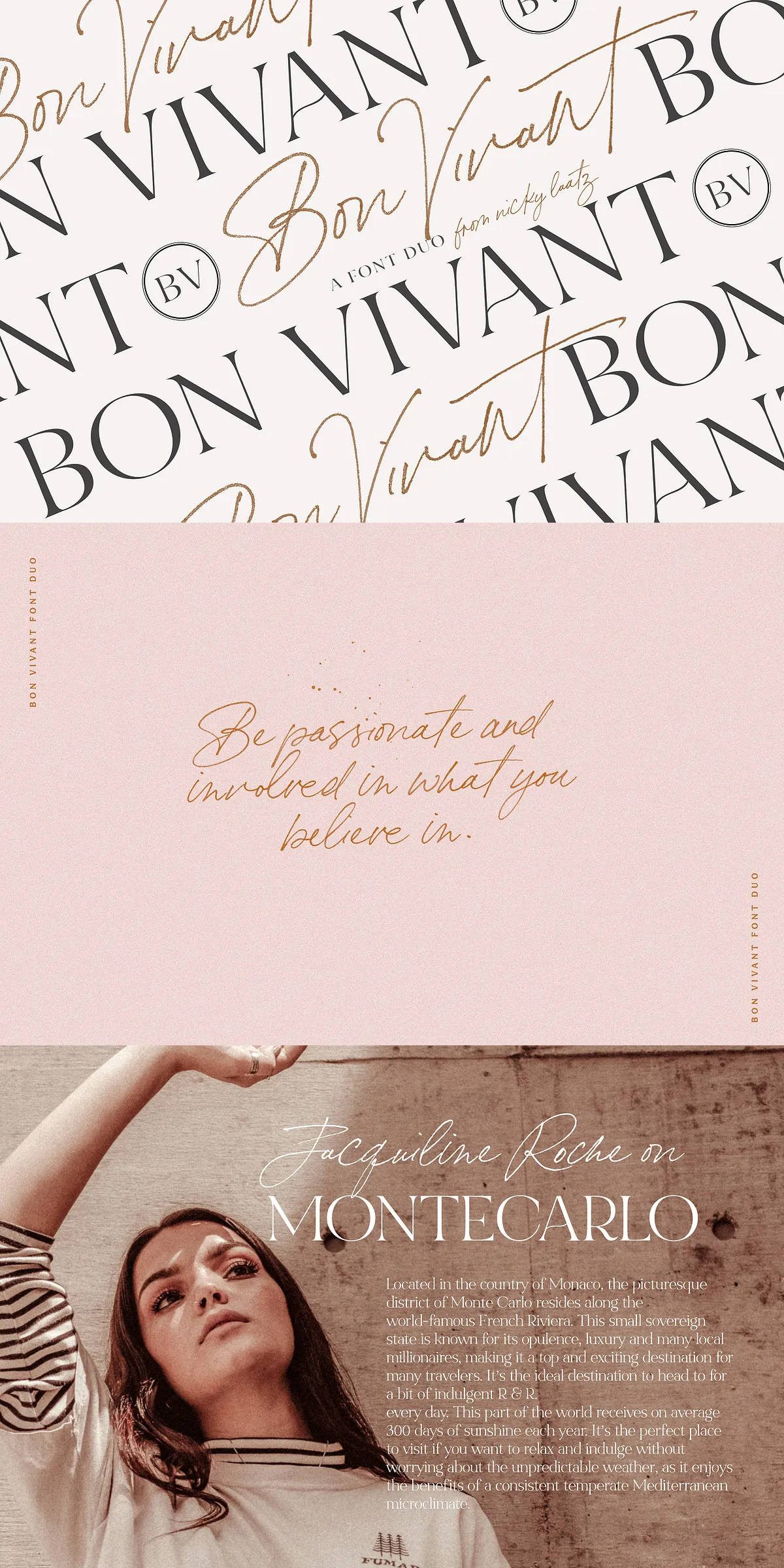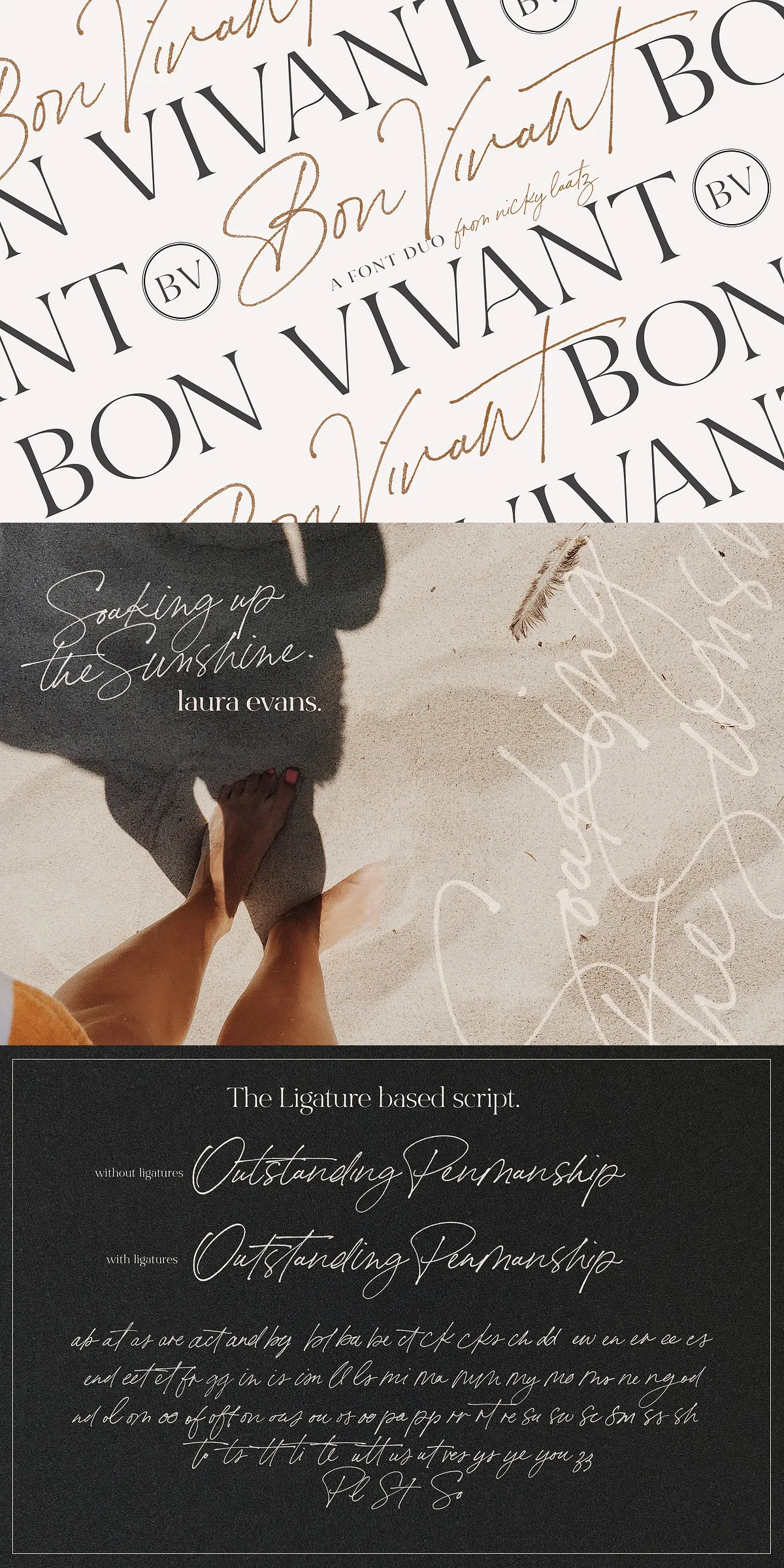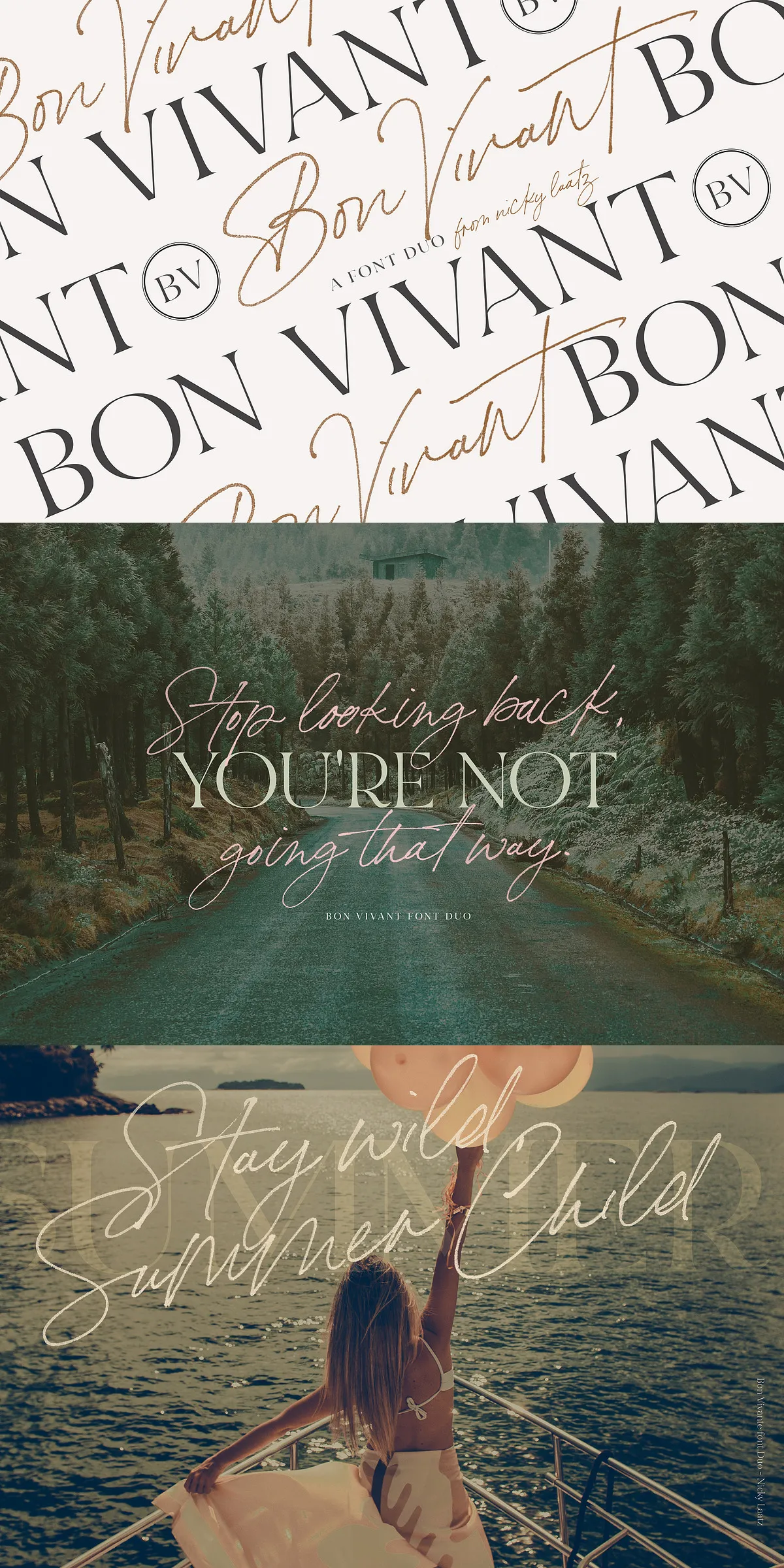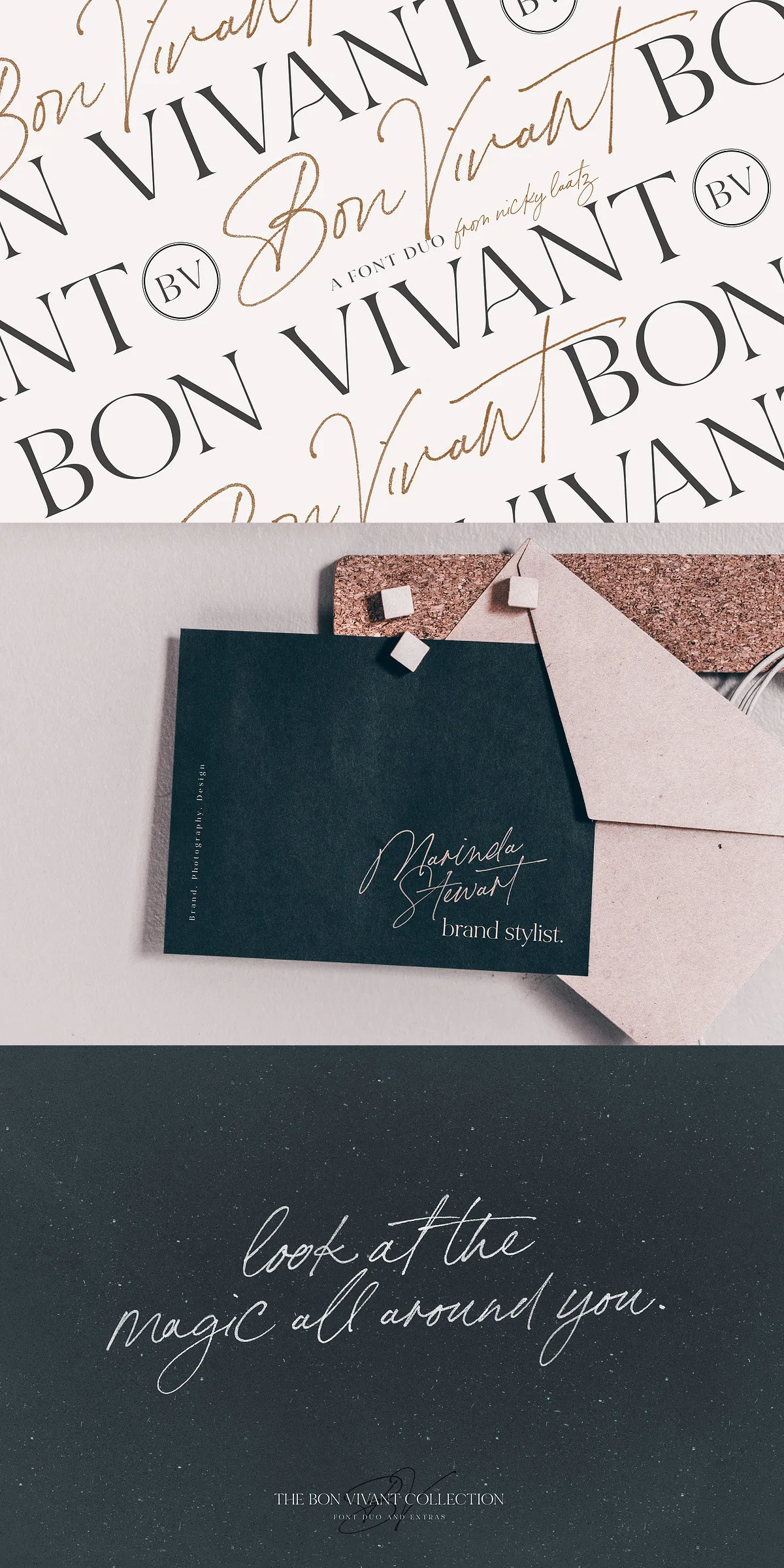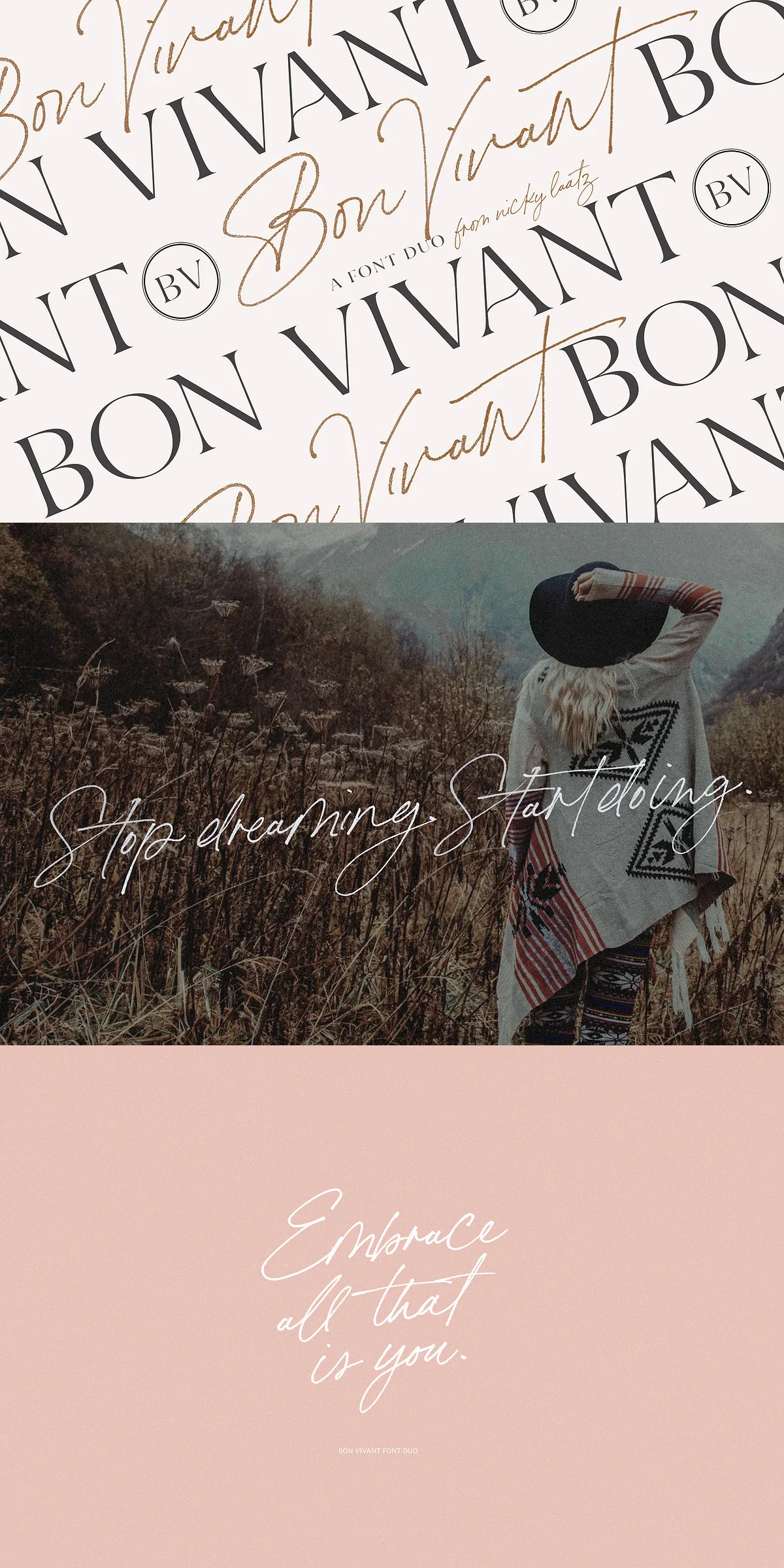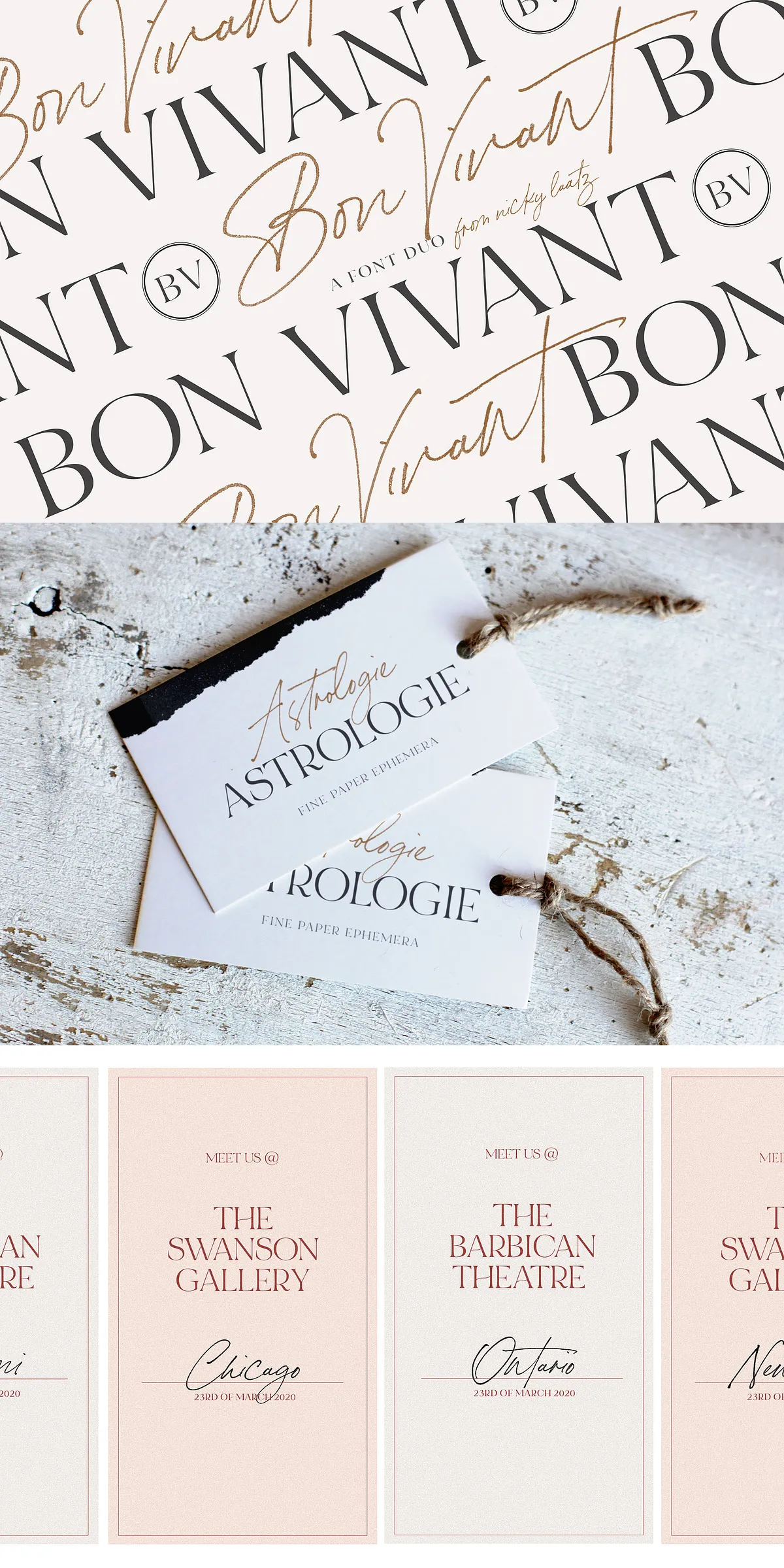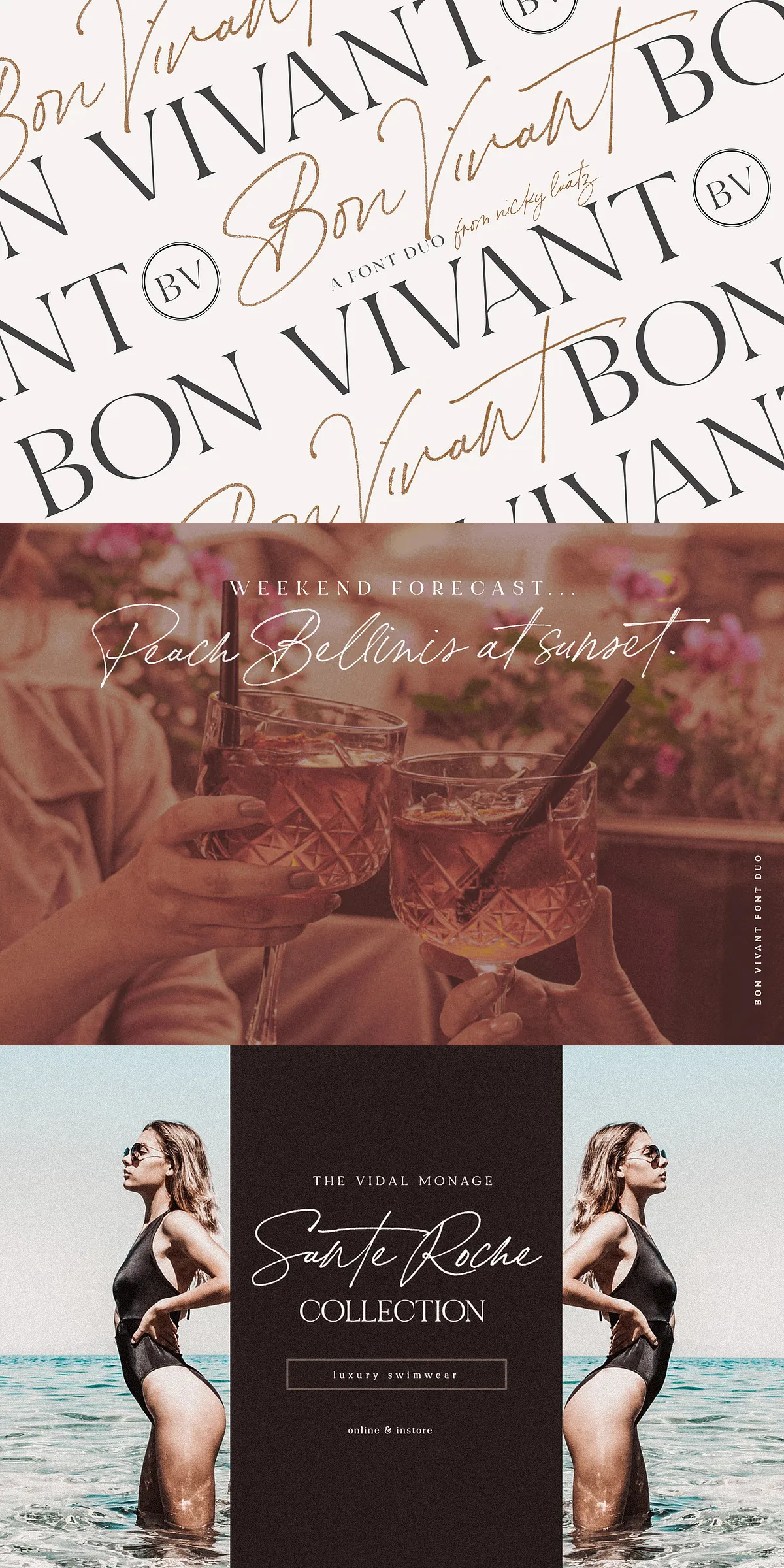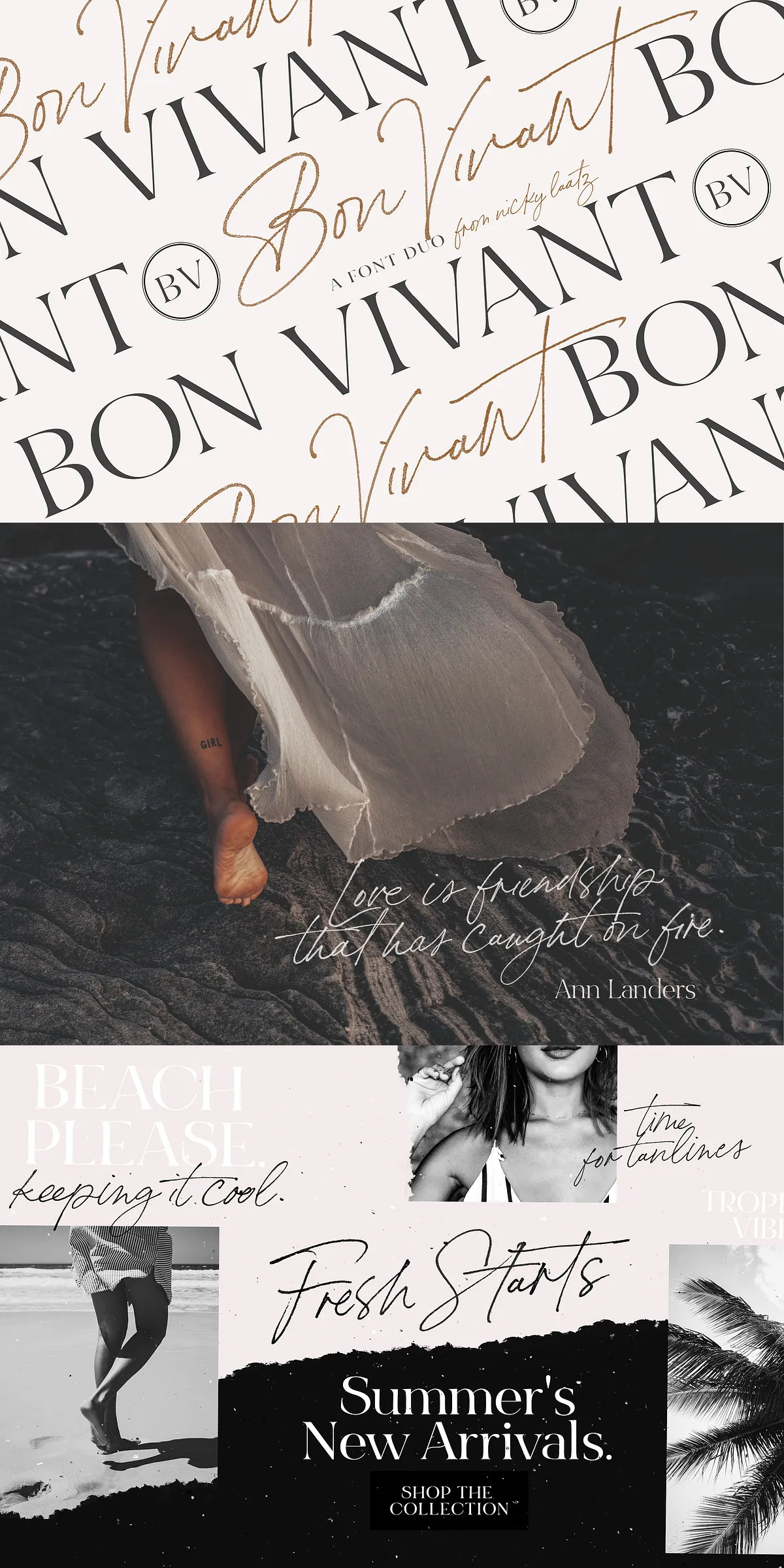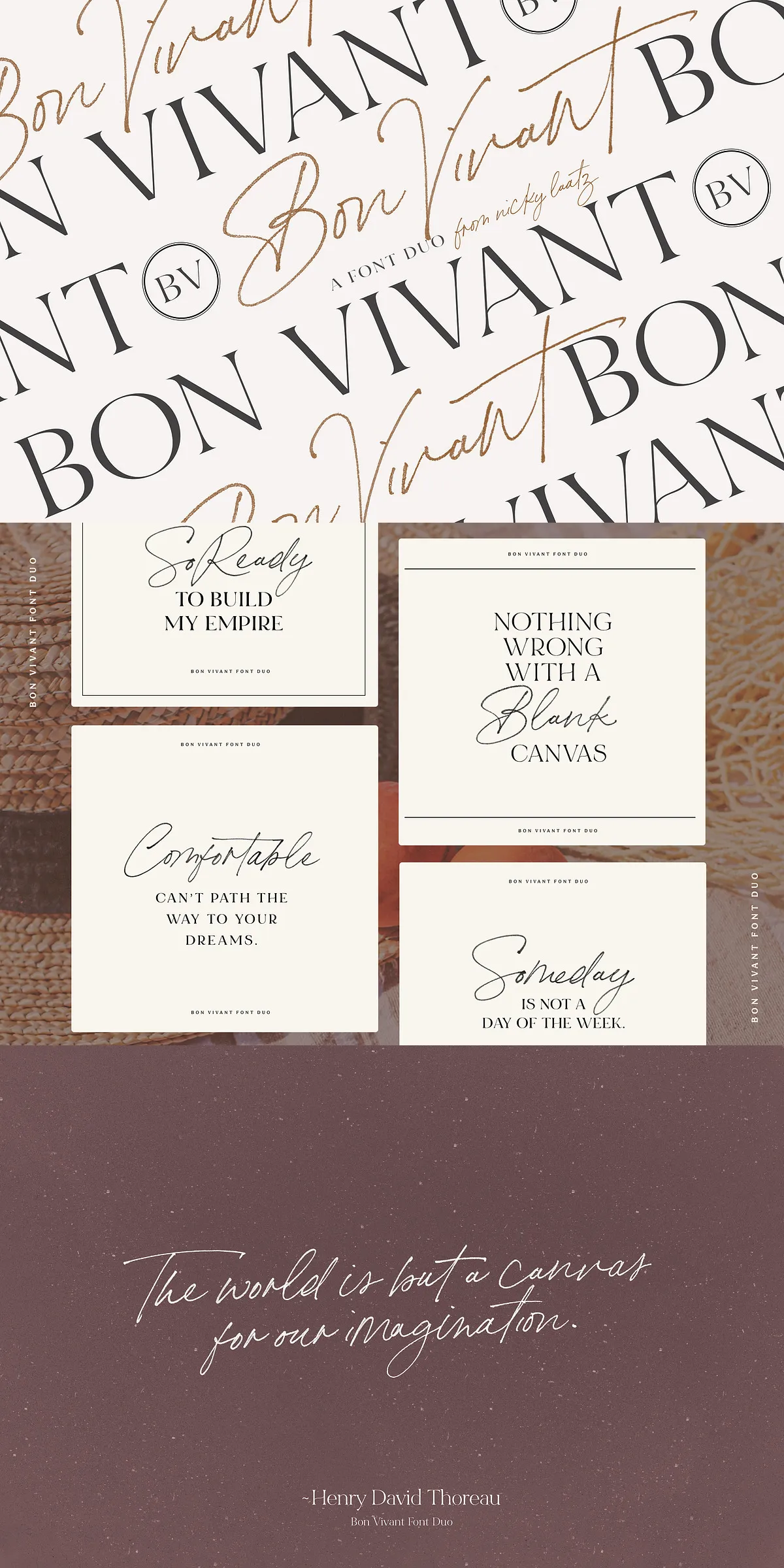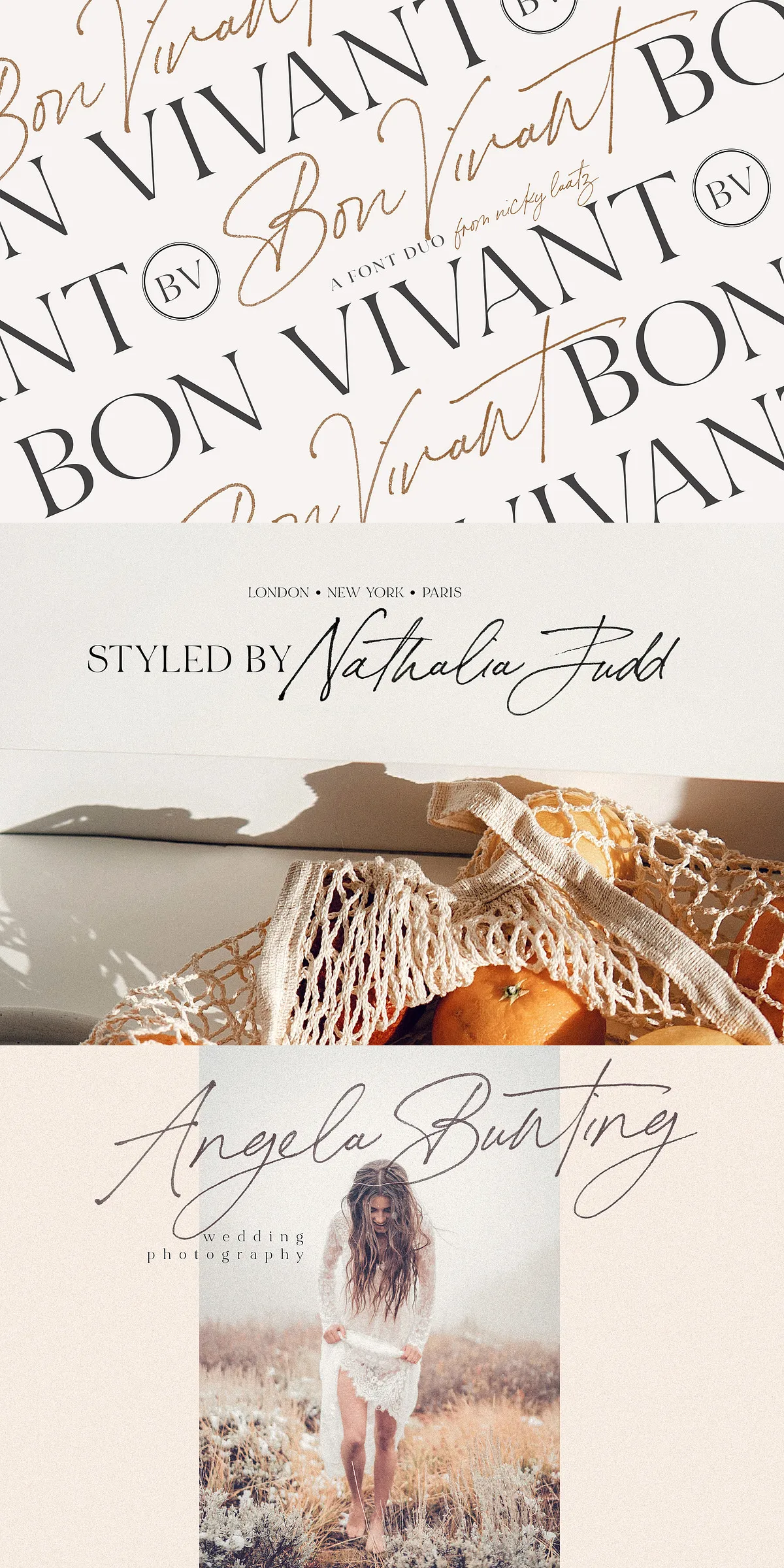
If you appreciate style and the finer things in life, the Bon Vivant Font Collection is designed just for you. This sophisticated font pack brings a touch of luxury and elegance to your creative projects, empowering you to craft stunning visuals that stand out. Whether you are designing branding, invitations, social media graphics, or editorial layouts, Bon Vivant offers a versatile and stylish solution that enhances your work with a refined aesthetic.
- Bon Vivant Script Font: A beautifully crafted script font available in both bitmap OpenType SVG and regular OpenType formats.
- Bon Vivant Serif Font: A classic serif font offered in two weights—regular and bold—for versatile typographic expression.
Detailed Features of the Bon Vivant Fonts
Bon Vivant Script Font
The script font in this collection is designed to mimic natural handwriting with a luxurious flair. It is available in two formats: a bitmap OpenType SVG font that supports rich color and texture effects, and a regular OpenType font for broader compatibility. The script includes a large selection of automatic ligatures, which create smooth, natural connections between letters, enhancing the authenticity of your typography. It supports uppercase and lowercase letters, full punctuation, and numerals, making it highly functional for diverse design needs.
Bon Vivant Serif Font
The serif font complements the script with its clean, elegant lines and classic structure. Offered in two weights—regular and bold—it provides flexibility for creating hierarchy and emphasis within your designs. Like the script, it includes uppercase and lowercase letters, punctuation, and numerals, ensuring comprehensive typographic coverage. This serif font is perfect for pairing with the script to create balanced and sophisticated compositions.